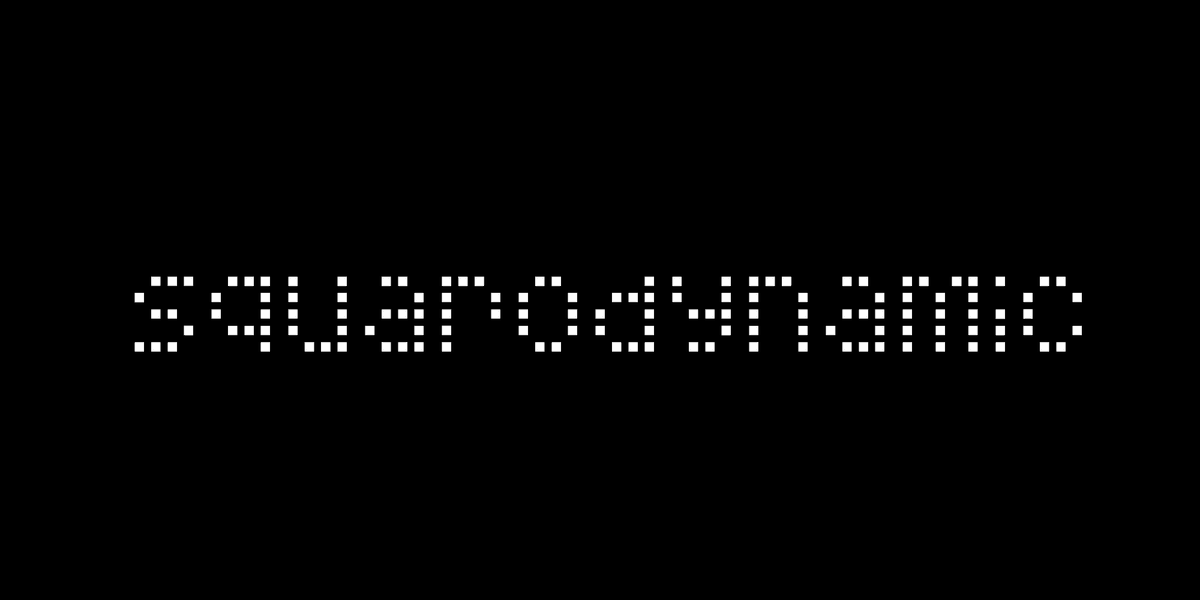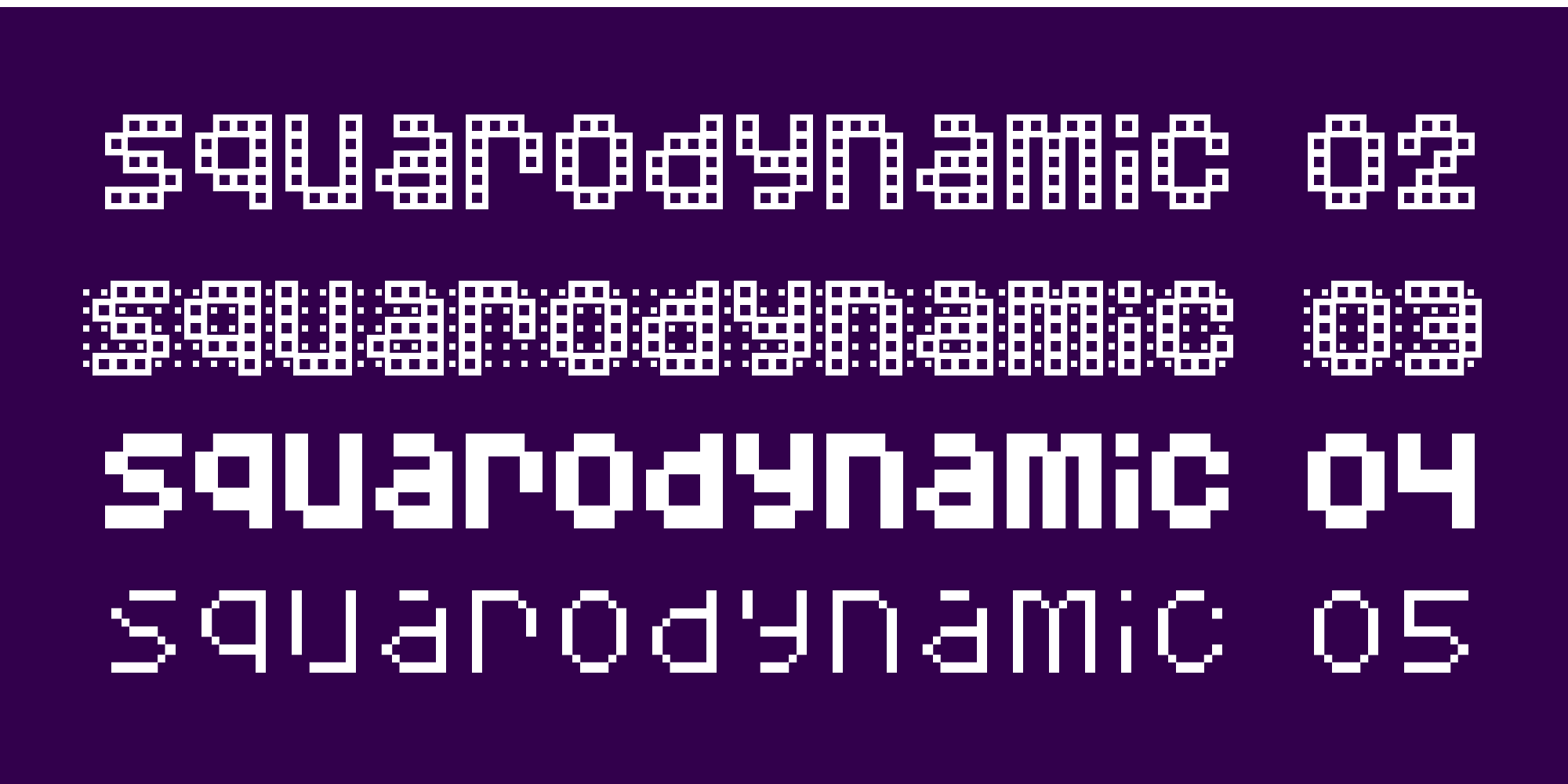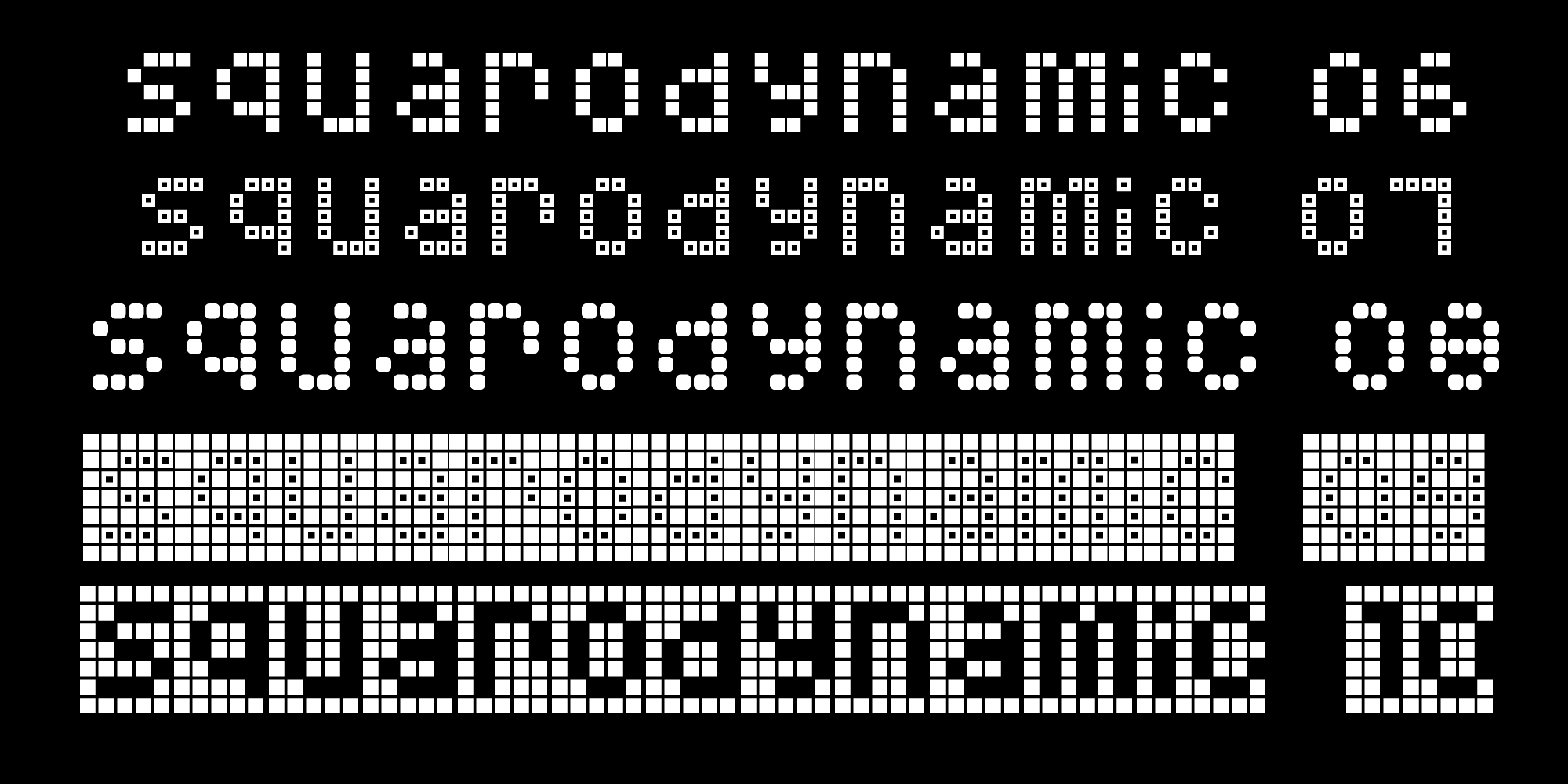
These are the long-promised "ten new fonts" I clammored about a few months back and never delivered. People like to use the internet these days and use fonts that reflect their mood. If you were using this font for that reason, I would guess your mood would be "squarey".